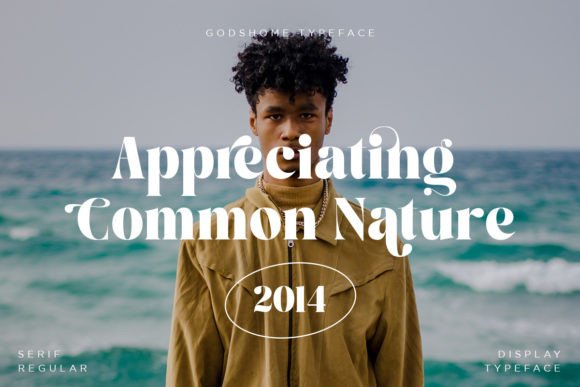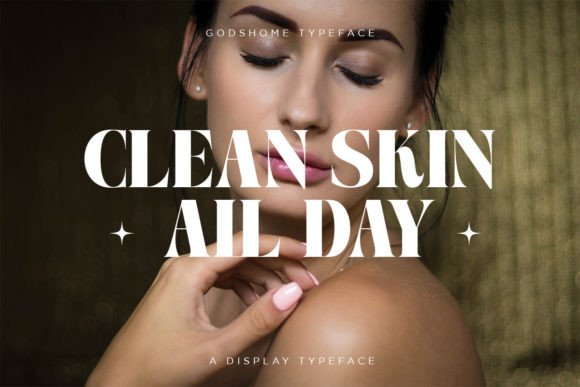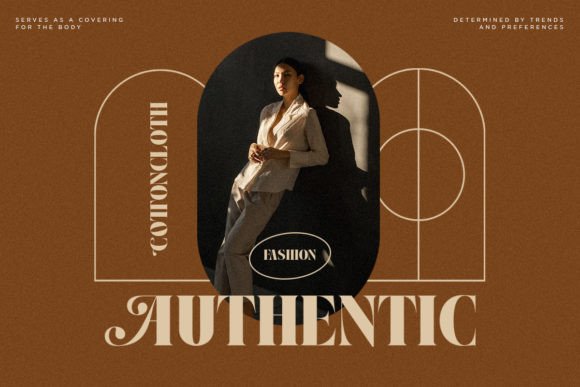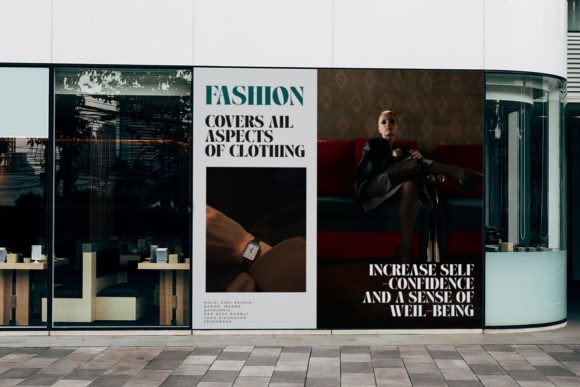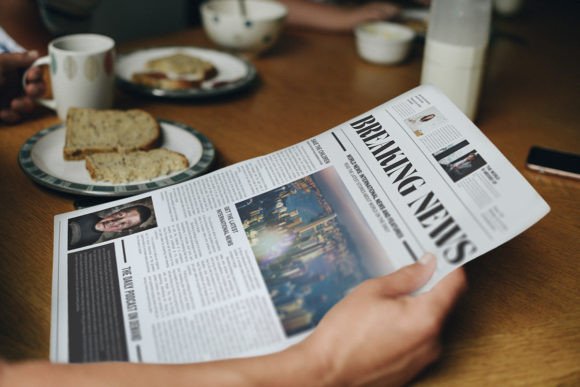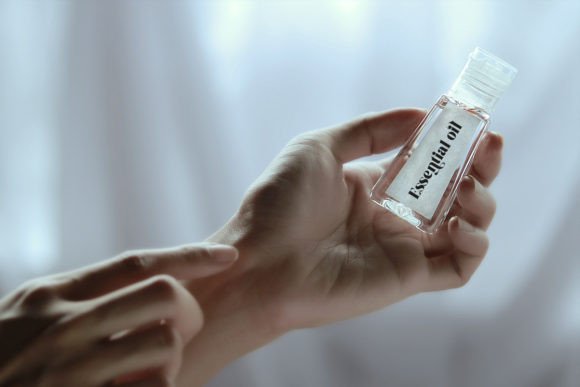
Introducing Godshome Font: Elevate Your Designs with Sophistication and Elegance
In the world of typography, a font can make or break a design. When it comes to creating a lasting impression, designers and crafters seek fonts that exude luxury, sophistication, and exclusivity. This is where Godshome Font comes into play – a stylish and exquisite display font designed to add a touch of refinement to any project.
The Essence of Godshome Font
Godshome Font boasts a sleek and elegant design, making it an ideal choice for high-end branding, editorial design, and fashion projects. Its unique and refined look conveys a sense of luxury and exclusivity, perfect for those seeking a premium and polished design. Whether you’re working on a logo, magazine, or fashion editorial, Godshome Font is sure to elevate your design to new heights.
Key Features of Godshome Font
• PUA Encoded: Godshome Font is PUA (Private Use Area) encoded, which means you can access all glyphs and swashes effortlessly. This feature allows for greater flexibility and creative freedom, making it easier to experiment with different design elements.
• Stylish and Exquisite: Godshome Font’s sleek and elegant design makes it perfect for high-end projects. Its refined look is sure to impress and leave a lasting impression on your audience.
• Luxury and Exclusivity: With Godshome Font, you can convey a sense of luxury and exclusivity, making it ideal for branding, editorial design, and fashion projects.
Why Choose Godshome Font?
When it comes to selecting a font for your project, there are numerous options available. However, Godshome Font stands out from the rest due to its exceptional design and versatility. Here are a few reasons why designers and crafters prefer Godshome Font:
• Unique Design: Godshome Font’s unique design makes it a standout choice for designers seeking a font that can help their project stand out from the crowd.
• High-End Quality: With its sleek and elegant design, Godshome Font is perfect for high-end branding, editorial design, and fashion projects.
Applications of Godshome Font
Godshome Font’s versatility makes it suitable for a wide range of applications, including:
• Branding: Use Godshome Font to create a lasting impression with your brand’s logo, business cards, or letterheads.
• Editorial Design: Godshome Font is perfect for magazine and newspaper designs, adding a touch of sophistication to your editorial content.
• Fashion Projects: Elevate your fashion designs with Godshome Font, ideal for fashion editorials, lookbooks, and branding.
In conclusion, Godshome Font is a stylish and exquisite display font that adds a touch of sophistication to any project. With its sleek and elegant design, PUA encoding, and versatility, it’s an ideal choice for designers and crafters seeking a premium and polished design. Whether you’re working on a high-end branding project, editorial design, or fashion project, Godshome Font is sure to elevate your design to new heights.